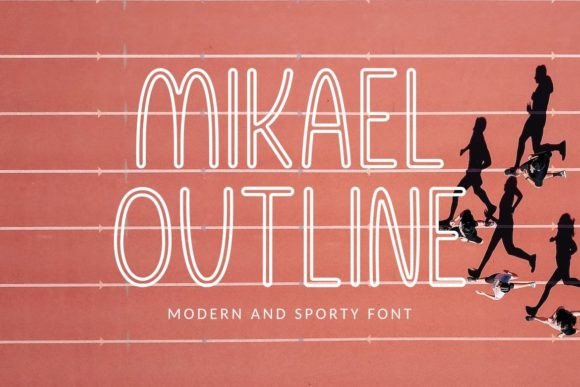
Welcome to the world of Mikael Outline Font, a captivating sans serif creation that captures the essence of timeless elegance and modern flair. This masterpiece, brought to life by the skilled hands of Goodrichees, is a true testament to the power of typography.
Imagine embarking on a journey through a world where words dance with grace and sophistication. Mikael Outline Font is your perfect companion, guiding you effortlessly through your creative endeavors. With its clean lines, subtle curves, and confident strokes, this font exudes an air of refinement that elevates any design to new heights.
Step into the realm of branding and logos, where Mikael Outline Font transforms your ideas into unforgettable visual identities. Let your brand's message shine through with a font that commands attention and leaves a lasting impression. Create logos that exude professionalism, sophistication, and a touch of artistic charm.
Journey into the realm of greeting cards and business cards, where every interaction becomes a heartfelt expression. With Mikael Outline Font, your words carry an extra layer of warmth and sincerity. Design greeting cards that evoke emotions and convey heartfelt sentiments. Craft business cards that reflect your dedication to excellence and leave a lasting impression on potential clients.
Explore the world of posters and t-shirt designs, where Mikael Outline Font becomes a canvas for your creativity. Unleash your artistic vision and create posters that captivate and inspire. Transform ordinary t-shirts into fashion statements, adorned with designs that speak to your unique style.
Venture into the culinary world, where Mikael Outline Font adds a touch of elegance to your menu designs. Let your culinary creations take center stage, presented with a font that complements their exquisite flavors. Elevate your dining experience with menus that tantalize both the taste buds and the eyes.
Harness the power of social media and websites, where Mikael Outline Font becomes your digital ambassador. Engage your audience with captivating posts and designs that stand out from the crowd. Create websites that exude professionalism and user-friendliness, inviting visitors to immerse themselves in your online world.